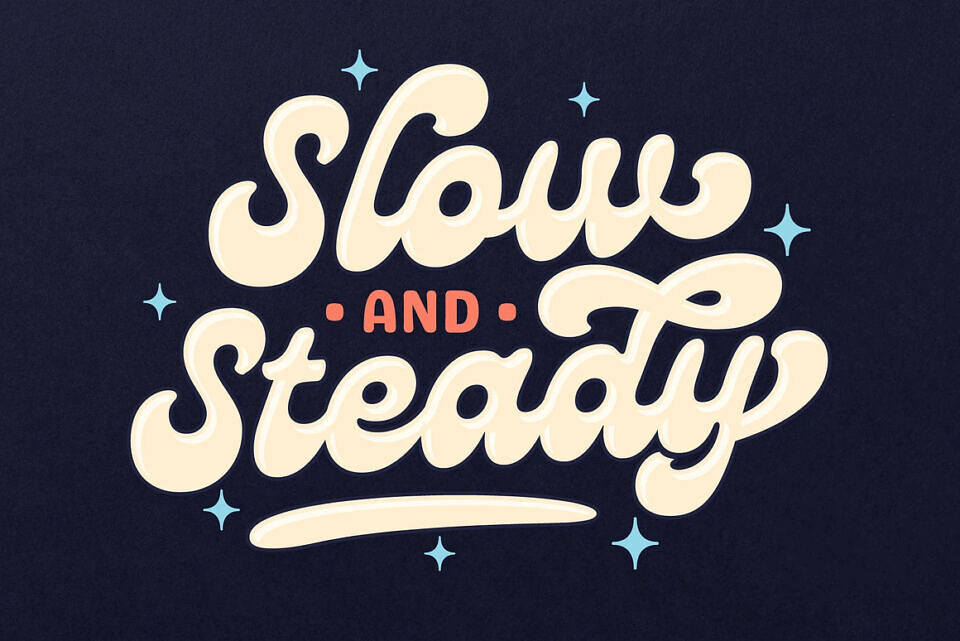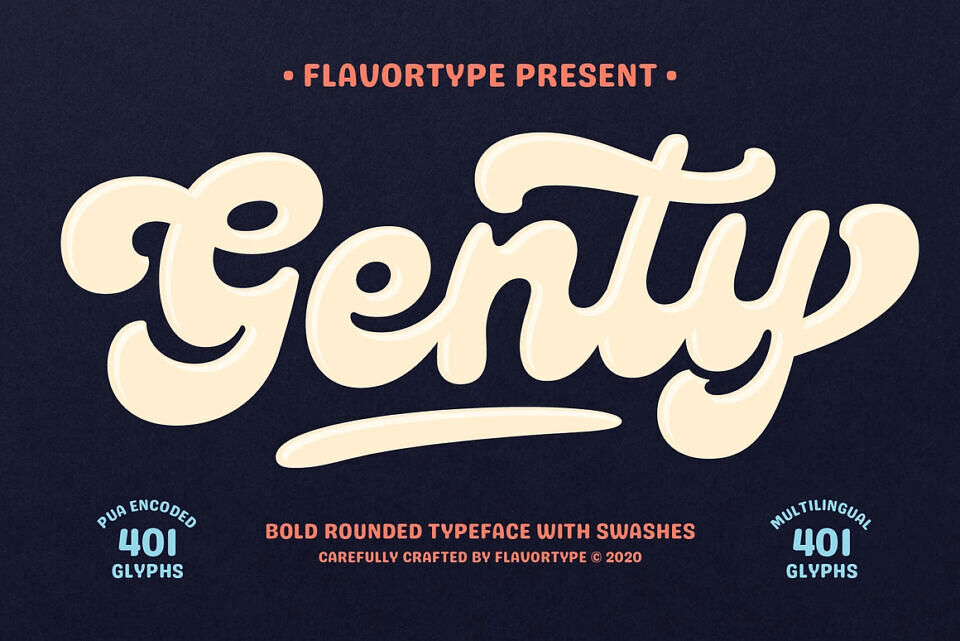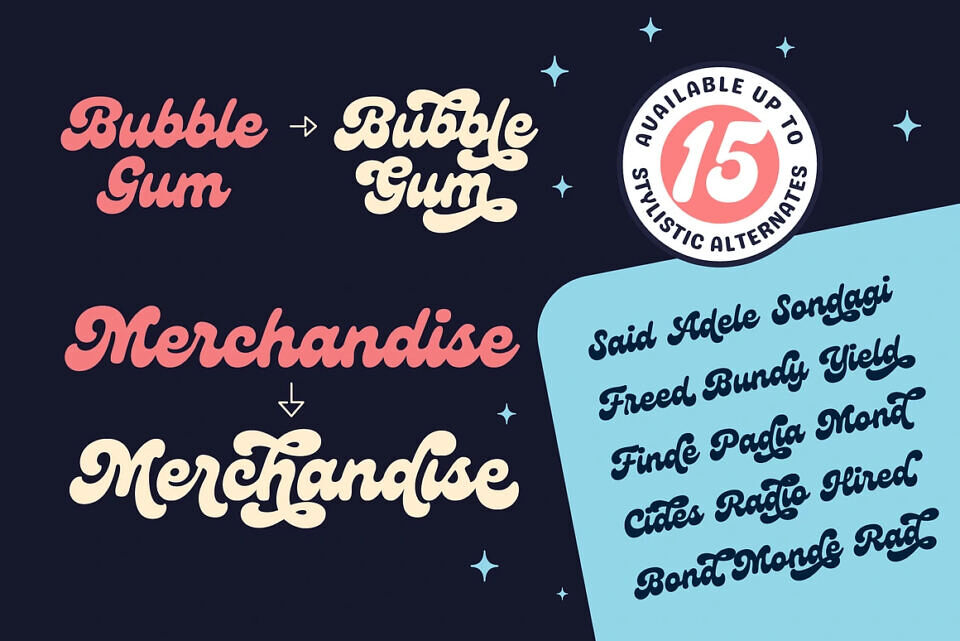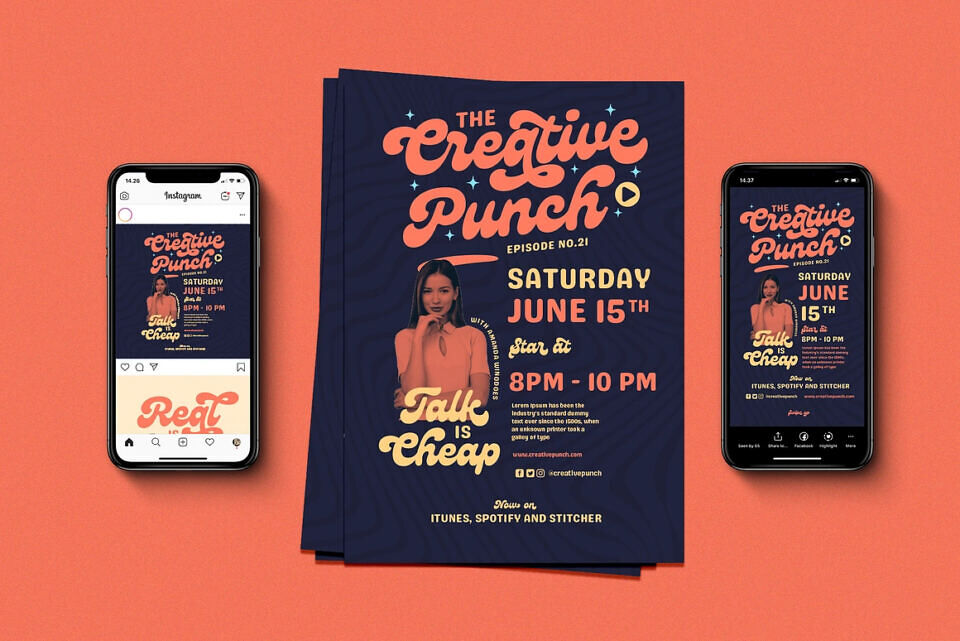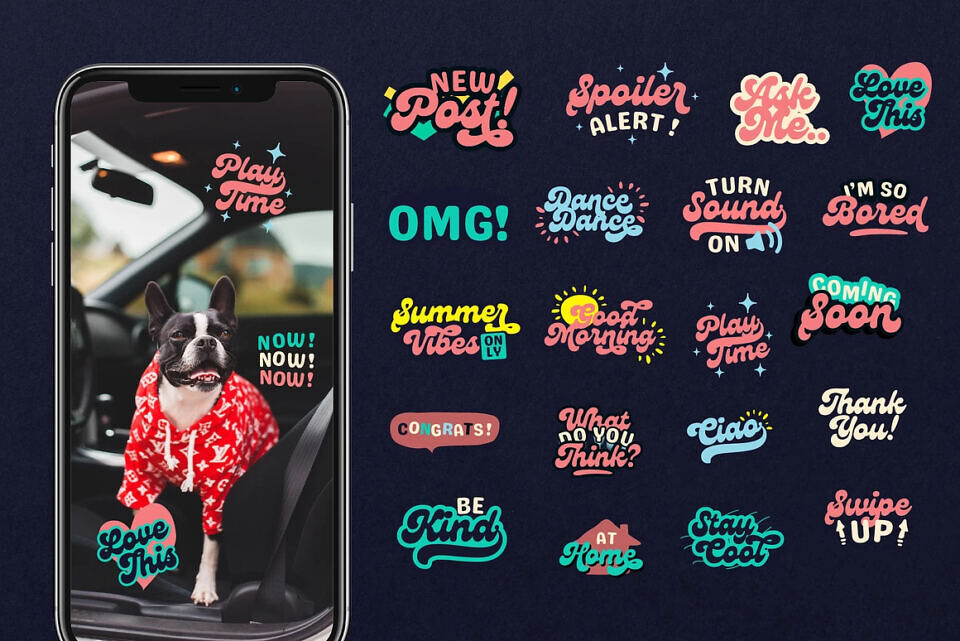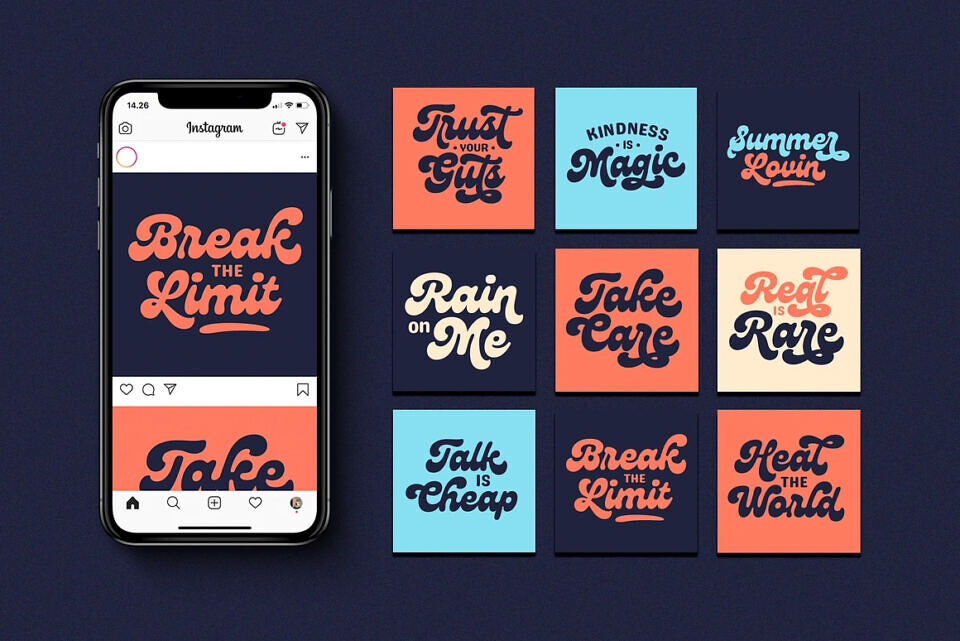
Genty Font
Meets Genty, a carefully crafted Delightful Bold on a script typefaces. A Creation of combining on our last 2 fonts which is Budge and Glaw. It generates a lot more fun, more trendy and more vibrant. It’s Versatile, Fun, Cute and Beauty feel that you get in Genty Typefaces.
Genty Created with a tons of opentype features. beautiful swashes, contextual alternates, stylistic sets up to 15 alternates, ligatures, ascender & descender swashes, Uppercase swashes, swoosh under the letters and swoosh at final of the letters.